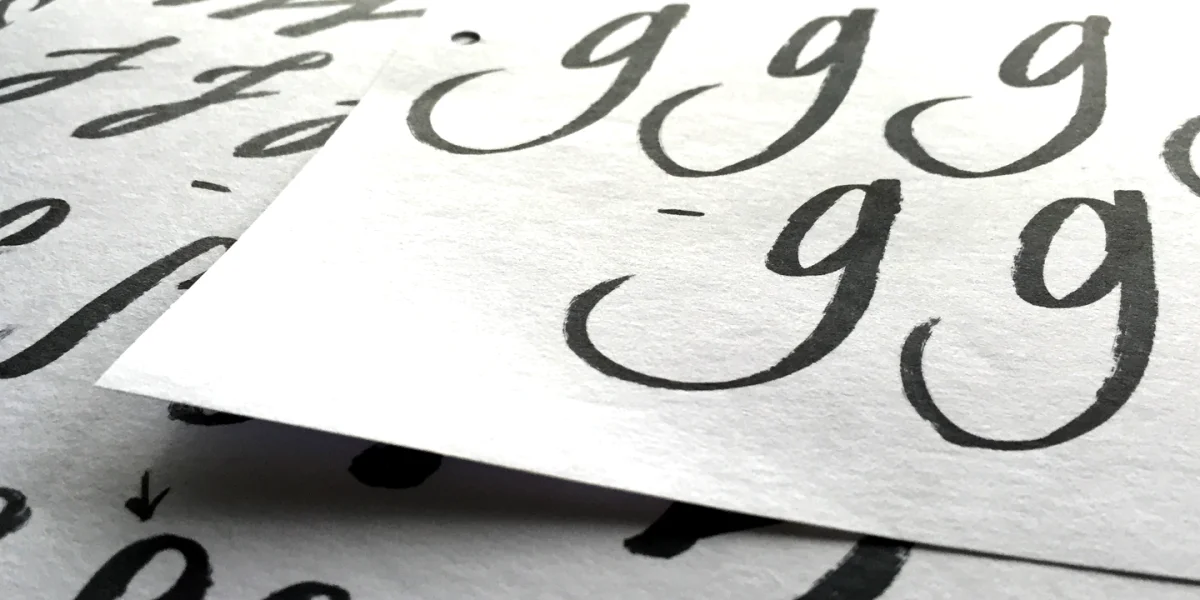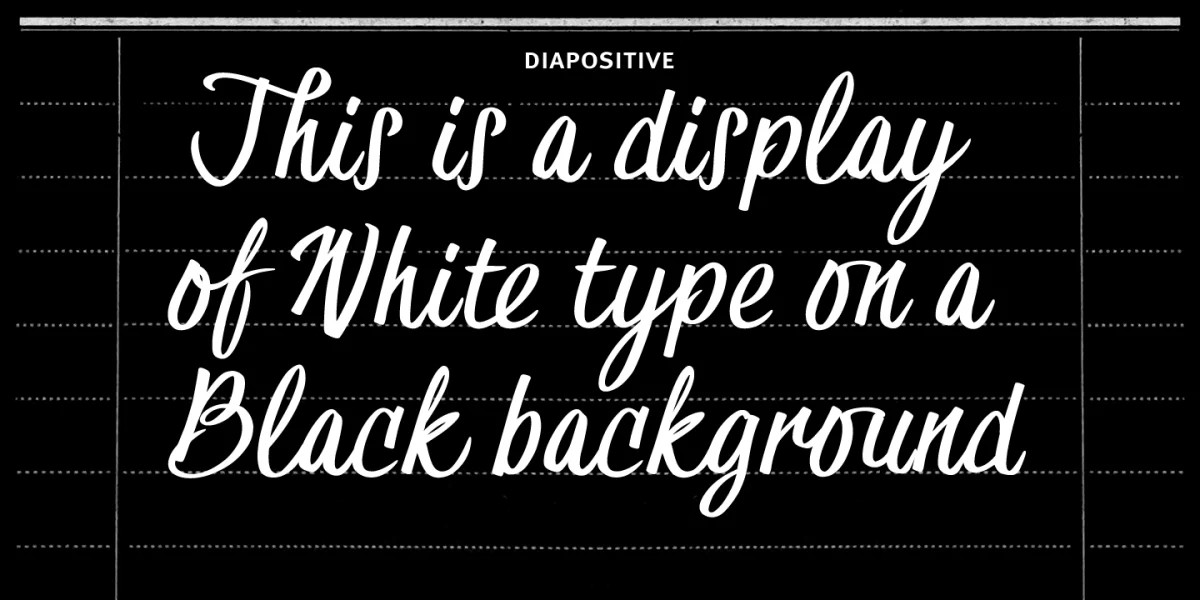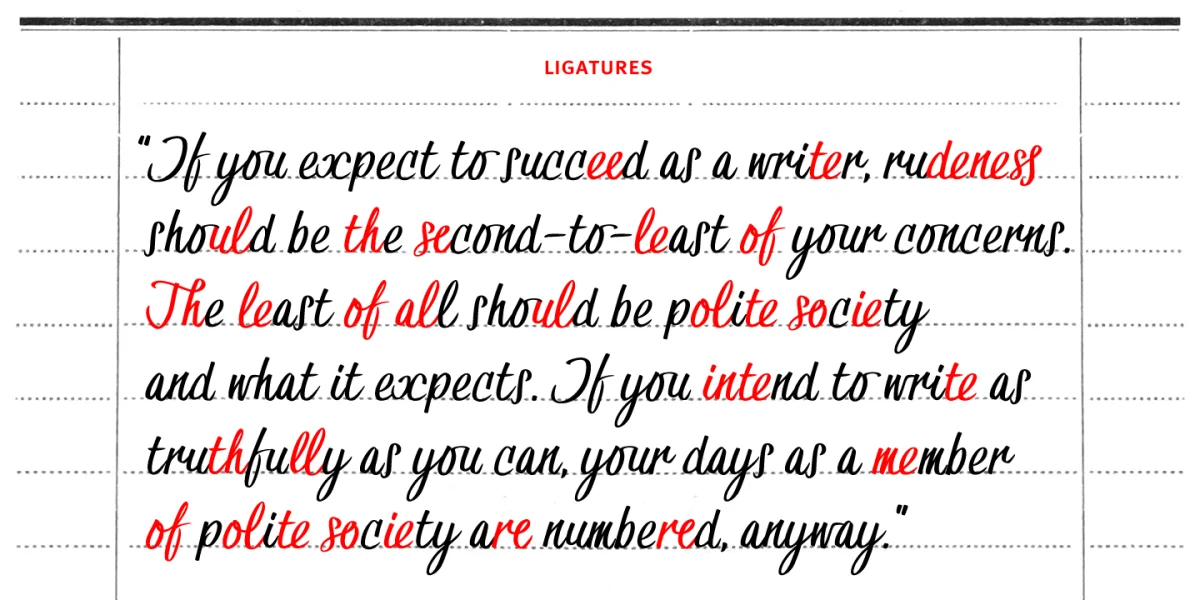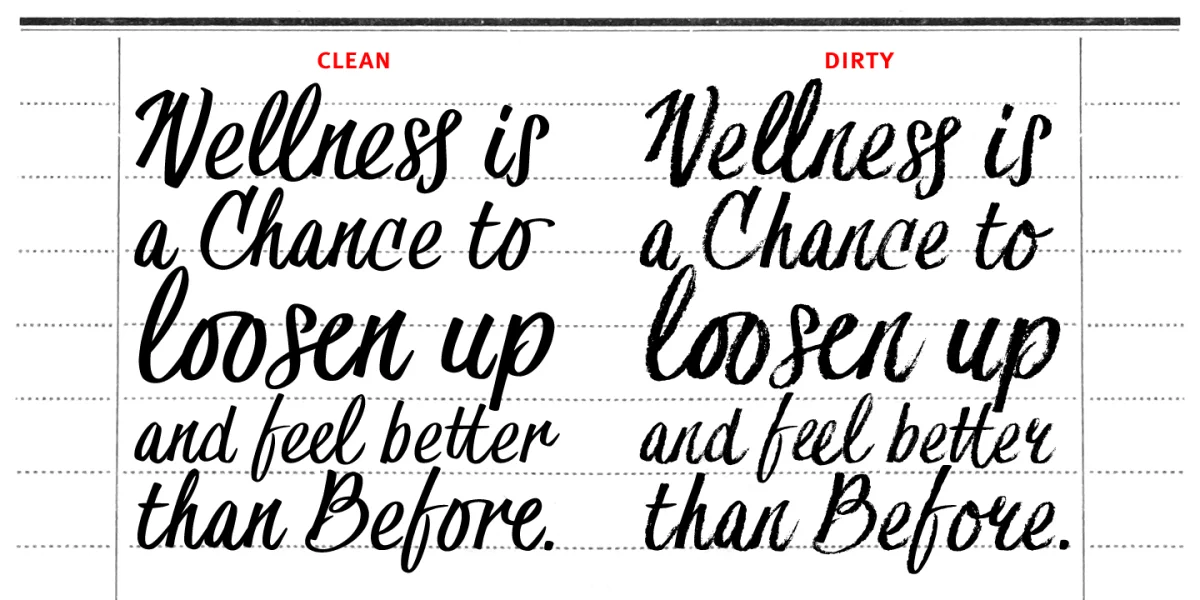
These are dressed down TRIAL versions of the Hesster Mofet font. The font comes in both a 'CLEAN' and a 'DIRTY' version. The complete fonts feature a bunch of ligatures and complete sets of special signs and accents. You can buy your copy here: www.joebobgraphics.com/fonts/hesster-moffett/